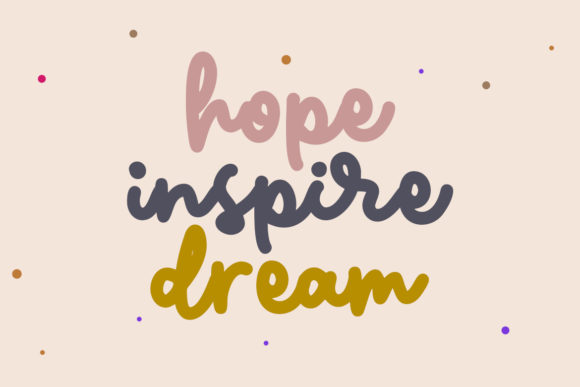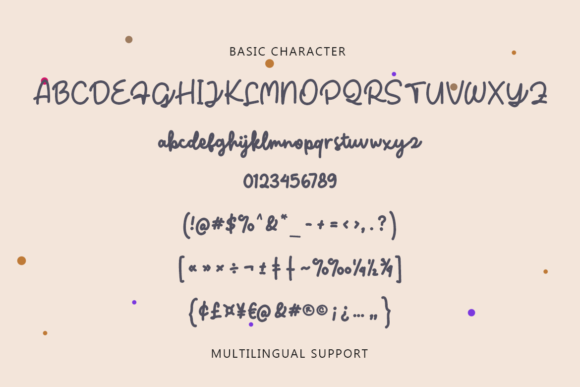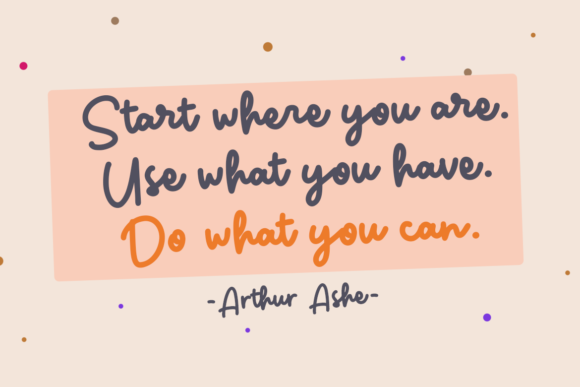
Introduction to Mikeny Font
Have you ever stared at a blank canvas, eager to bring a creative project to life? The blank page can be daunting, but the right design resource can spark your imagination and guide your brushstrokes. For designers and artists, finding the perfect font can be the difference between a mediocre creation and a masterpiece.
That’s where the Mikeny Font comes in – a high-quality, friendly paint-brushed script font that adds a lovely touch to any design. With its transparent background and smooth texture, Mikeny Font is perfect for cartoon-related designs, children’s games, and any other creative project that requires a playful and approachable feel.
Key Features of Mikeny Font
- High-quality design resource with a unique, modern aesthetic
- Features a transparent background, ideal for creative projects requiring a clean and minimalist look
- Designed to be highly versatile, suitable for a wide range of creative projects, from logos and branding to digital art and typography
Honest Review: Mikeny Font
I recently had the chance to work with the Mikeny Font in a creative project, and I must say it’s been a solid addition to my design resource library. This font is definitely a high-quality addition to any designer’s toolkit.
One of the things I love about Mikeny Font is its versatility. The clean and modern design makes it perfect for a variety of creative projects. ✨ The transparent background allows for seamless integration with any background image or color, giving me complete control over the final look and feel of my design.
- Beautifully crafted letters with a modern twist
However, there are a few limitations to consider. ⚠️ For one, the font can be a bit too simple for some designs, and may not offer the level of customization that more advanced designers are looking for.
Tips for Getting the Most Out of Mikeny Font
To maximize the potential of the Mikeny Font, experiment with different font sizes, styles, and combinations to create unique and eye-catching designs. Additionally, use the font’s transparent background to create visually appealing backgrounds and effects.
Common Use Cases for Mikeny Font
The Mikeny Font is ideal for creative projects requiring a high-quality, modern font. Common use cases include logo design, typography-based art, and branding materials. Take advantage of the free download and use it in your next design project to elevate your creative output.